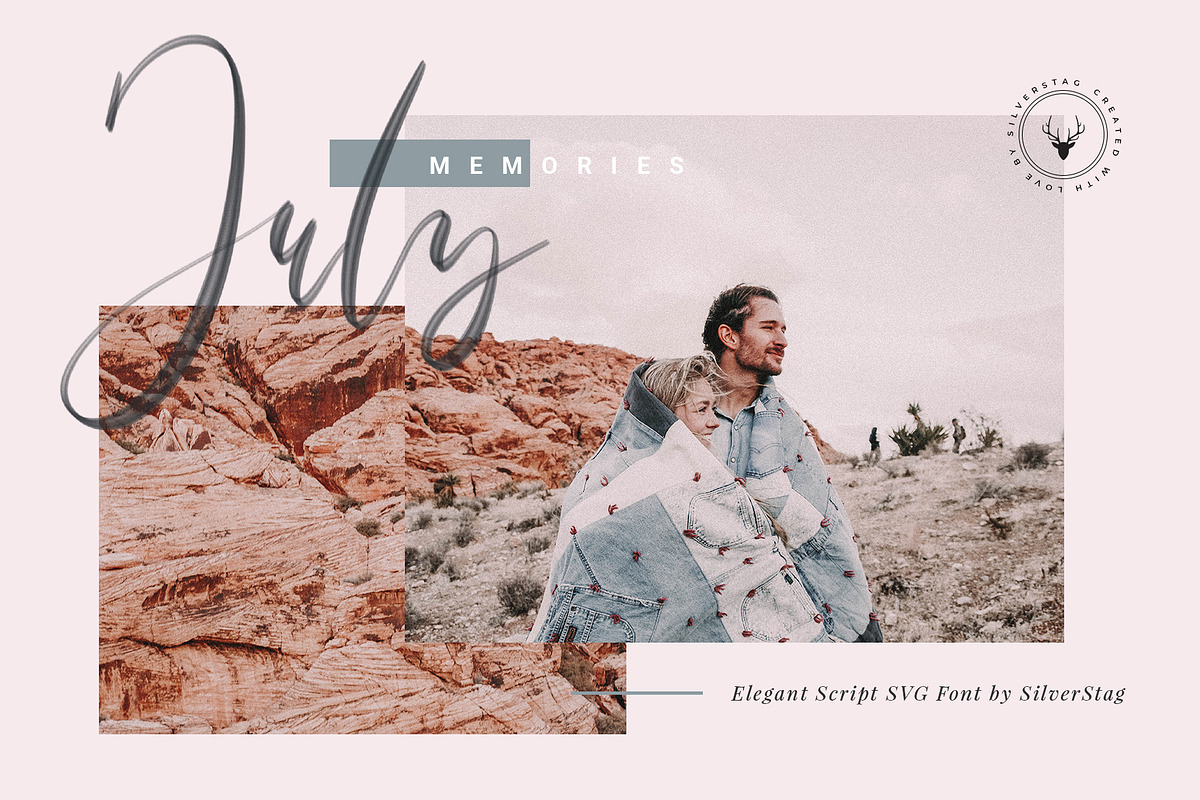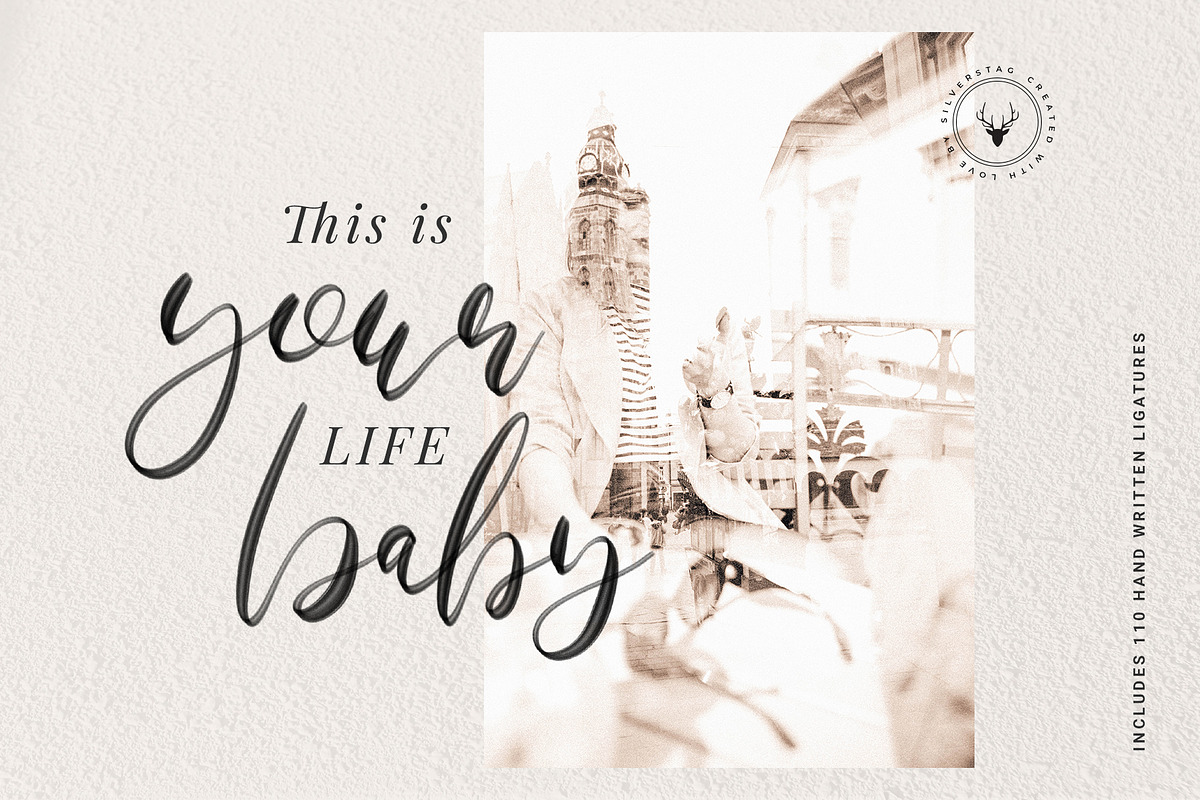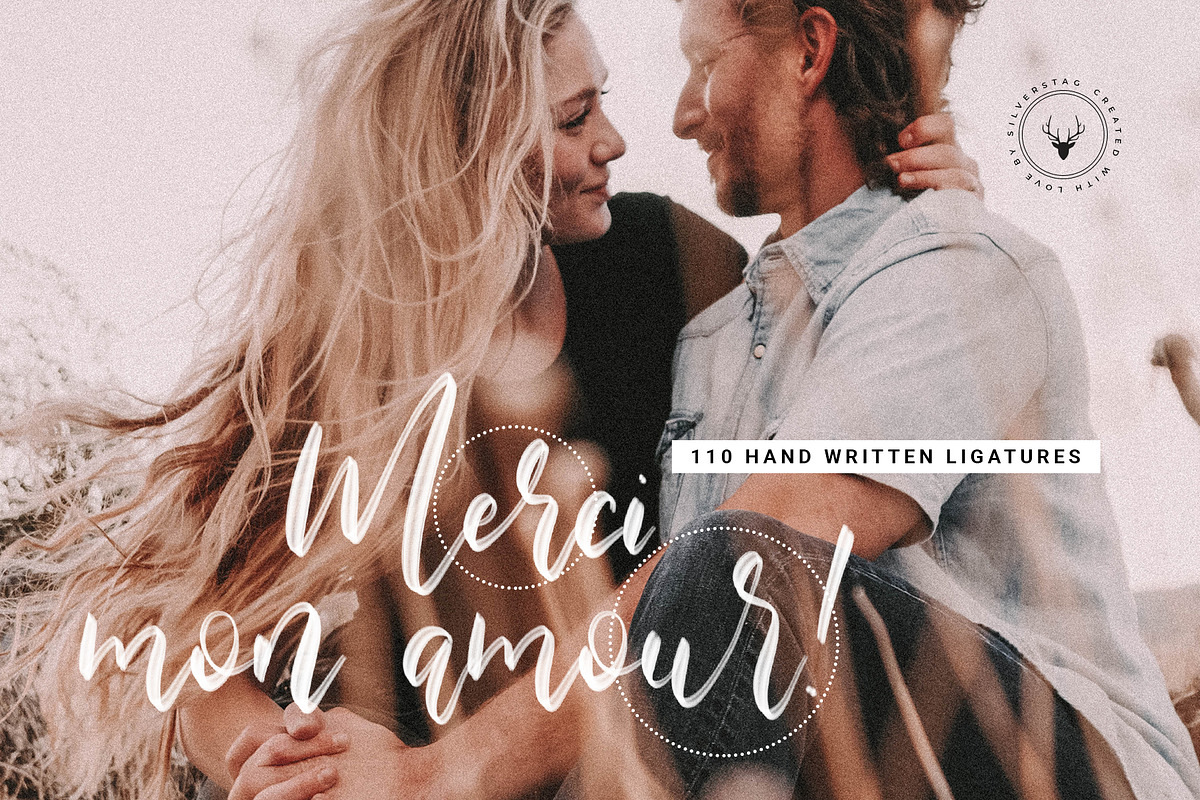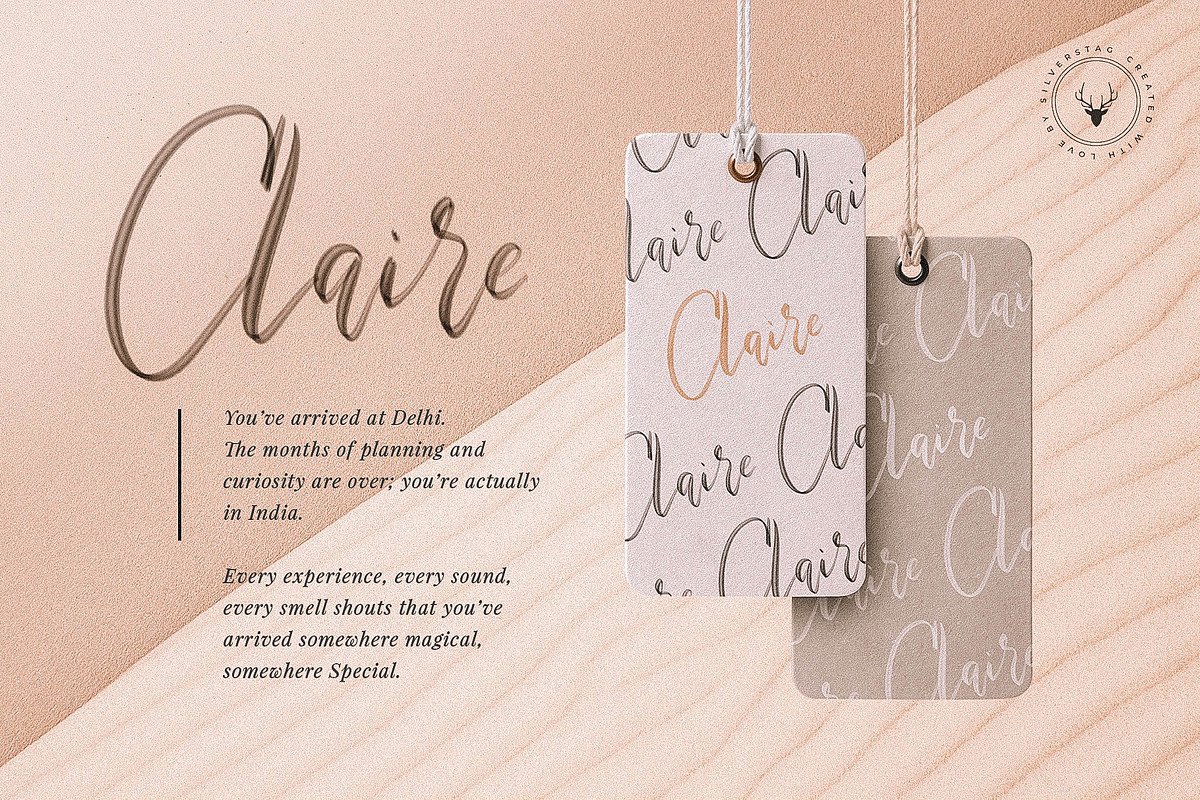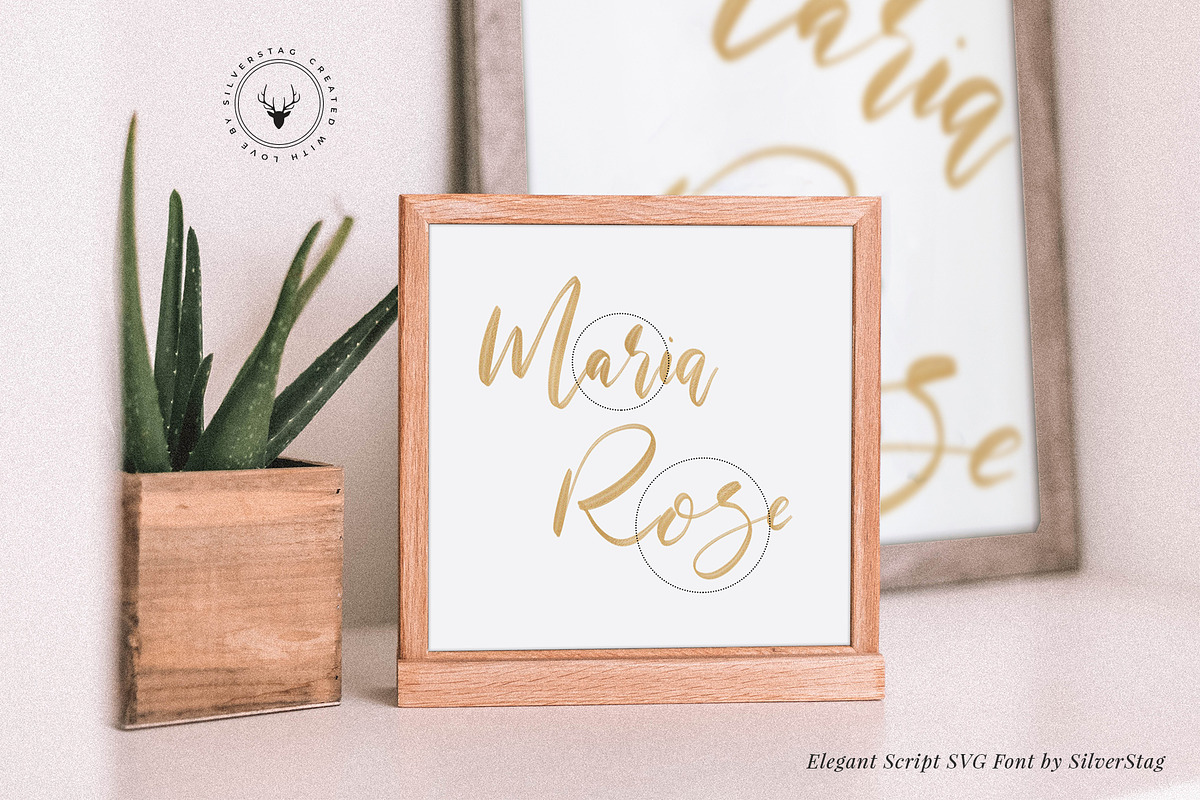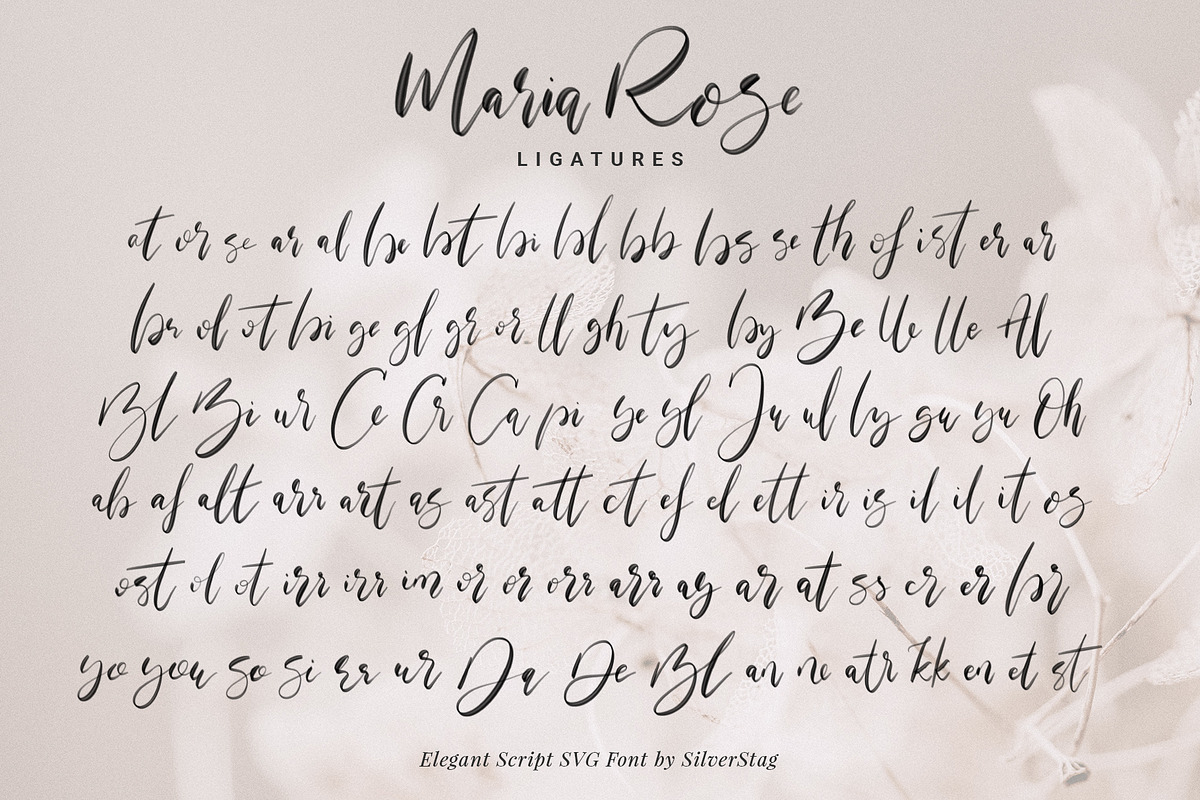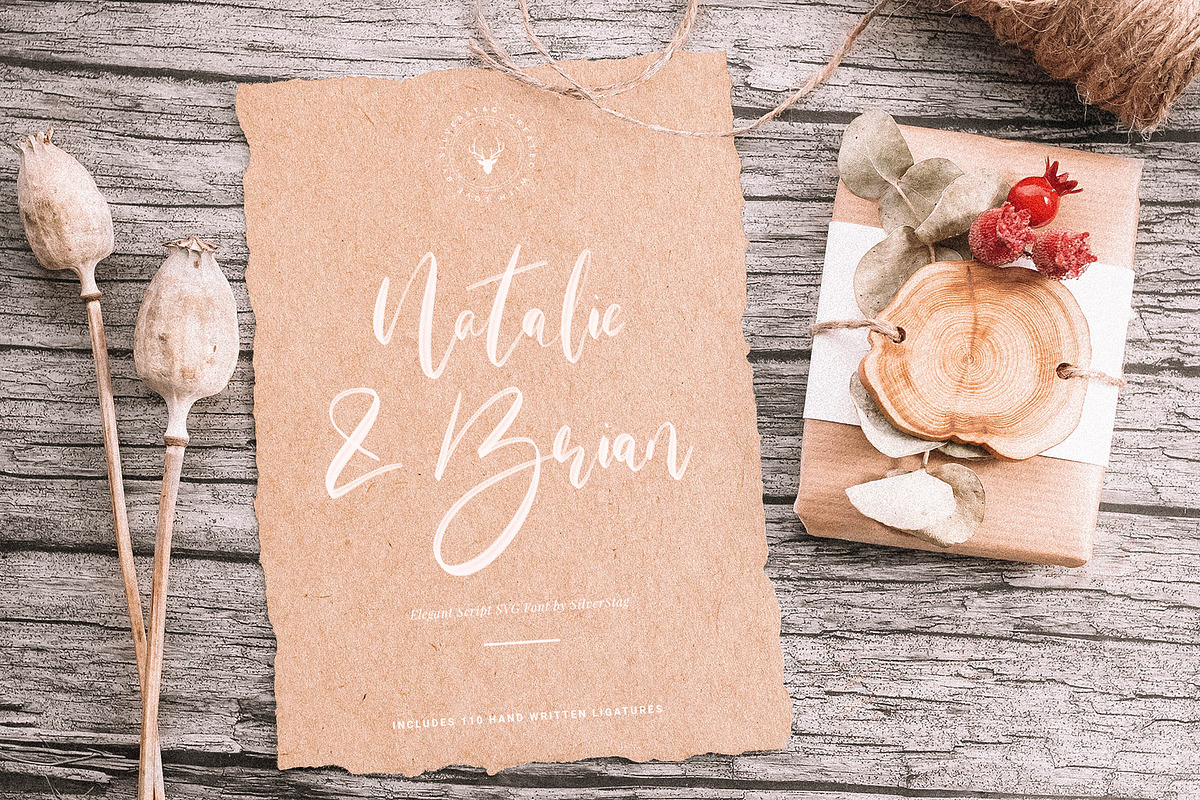
Maria Rose Elegant Script SVG Font
Maria Rose is an elegant SVG Font that has a true hand drawn look and feel.
Why Maria Rose Elegant Script SVG Font is worth a look
Maria Rose Elegant Script SVG Font by SilverStag Type Foundry fits naturally into Branding, posters, packaging, typography.